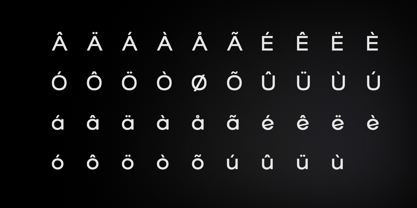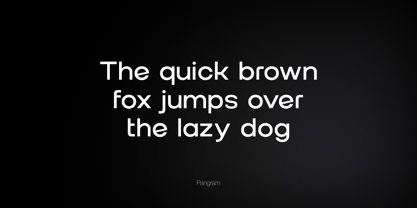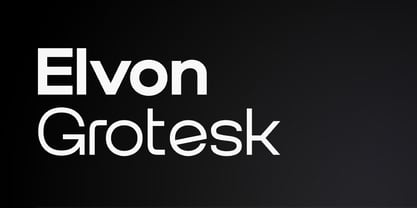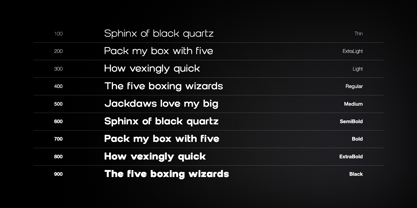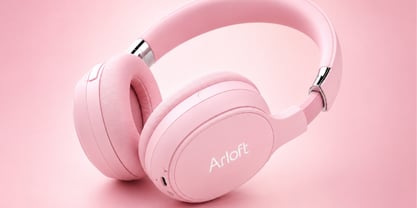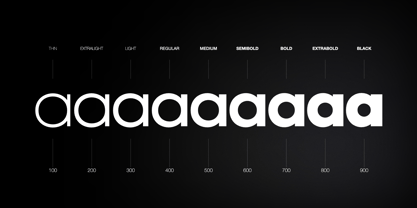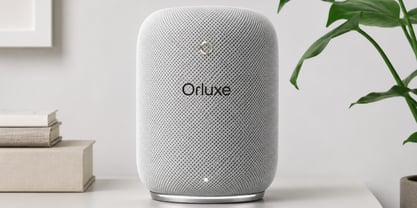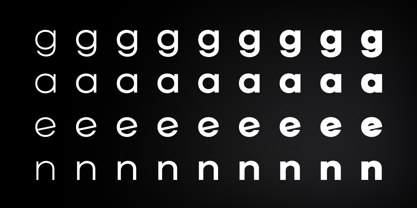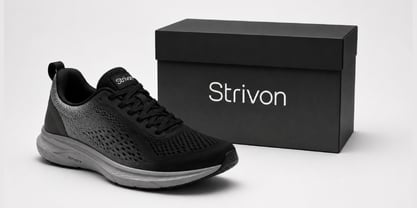
Elvon Grotesk
The Elvon Grotesk Font Family was designed by Ancy George and published by Webhance. Elvon Grotesk contains 18 styles and family package options. More about this family
Elvon Grotesk is a modern grotesk sans-serif typeface designed with clarity, versatility, and contemporary aesthetics in mind. Inspired by the timeless principles of classic grotesk typography, it combines clean letterforms, balanced proportions, and refined details to create a professional and highly adaptable type system.
With its neutral character and excellent readability, Elvon Grotesk performs effortlessly across a wide range of applications, from digital interfaces and branding projects to editorial layouts and marketing materials. Whether used for bold headlines, user interfaces, or long-form text, it delivers a confident and modern visual voice.
Carefully crafted for consistency and functionality, Elvon Grotesk offers a structured typographic system suitable for designers, agencies, startups, and businesses seeking a clean and reliable sans-serif family.
Elvon Grotesk includes extended Latin language support and a comprehensive set of accented characters, making it suitable for multilingual projects across numerous languages worldwide.
The family includes 9 weights, ranging from Hairline to Black, each accompanied by matching italics. This extensive range provides maximum flexibility for creating sophisticated visual hierarchies and cohesive design systems.
Best Use Cases: UI and UX Design • Web and Mobile Applications • Dashboards and Data Visualization • Branding and Visual Identity • Editorial Design • Corporate Communications • Packaging Design • Marketing Campaigns • Social Media Graphics • Presentations and Business Documents